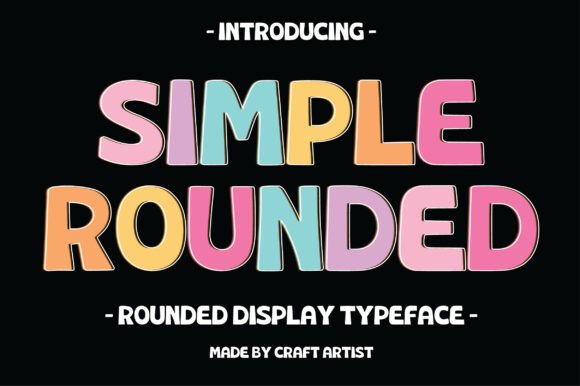
Simple Rounded: A Friendly Display Typeface for Thoughtful Design
Last week, I sat down to refresh the cover of a small digital cookbook—a collection of seasonal, no-fuss recipes I’ve been sharing with readers for years. The old cover used a tight, geometric sans serif that felt efficient but distant. I wanted something warmer. Something that whispered “welcome” before the first ingredient list even appeared. That’s when I reached for Simple Rounded.
It’s not flashy or experimental—just quietly confident. A display typeface built from soft curves and generous proportions, where every letterform feels like it’s breathing. There’s no sharp contrast between thick and thin strokes, no abrupt angles—just smooth transitions, open counters, and a gentle rhythm that invites the eye without demanding attention. It’s bold enough to hold space on a screen or printed page, yet never overwhelming. Playful, yes—but never childish. Modern, yes—but never cold.
I used Simple Rounded for the title on that cookbook cover, set large against a muted linen background. Instantly, the tone shifted: grounded, approachable, unhurried. Readers told me the cover felt “like coming home”—not because of the photography or layout alone, but because the typeface carried warmth into the first visual impression. That’s the quiet power of a well-chosen display font.
In editorial work, Simple Rounded shines where personality meets clarity. It’s ideal for blog headers, chapter openers, newsletter banners, and printable planner covers—anywhere you want to signal intention without shouting. I recently applied it to section headings in a coaching workbook, pairing each with a light, highly readable serif for body text. The contrast worked beautifully: Simple Rounded gave structure and friendliness; the serif offered quiet authority and ease for longer reading. No competing voices—just thoughtful hierarchy.
What makes it especially useful across formats is its consistency in translation. On mobile screens, it remains legible at headline sizes—even at 24px on a small device, the rounded terminals and generous x-height keep shapes distinct. In PDF exports for printables or course materials, it renders cleanly without hinting artifacts. And unlike some decorative display fonts, it doesn’t collapse in spacing or lose charm when exported to web-friendly formats like WOFF2.
That said, Simple Rounded isn’t meant for paragraphs. Its strength lies in short, intentional bursts: titles, pull quotes, callouts, branding elements. I once tested it for a digital magazine’s feature opener—two lines of headline text over a full-bleed photo—and it anchored the composition without competing with the image. But when I tried setting a sidebar caption in it, the friendliness began to blur into informality. That’s when I switched to a clean, neutral sans serif for supporting text. Good display fonts don’t try to do everything—they know their role.
Font pairing matters deeply in editorial design, and Simple Rounded plays well with others. With serif body fonts—think Garamond, Lora, or even a warm contemporary like Literata—it creates a gentle, human contrast: organic curves meeting structured elegance. With sans serifs, it pairs best with restrained, open-faced options like Inter, Poppins (in regular or light weights), or even classic Helvetica Neue—not for mimicry, but for balance. Avoid pairing it with other rounded fonts or scripts; the voice becomes muddled. Let Simple Rounded be the smile in the room—not the whole conversation.
I also appreciate how thoughtfully it’s built. The family includes multiple weights (Light through Bold), true italics—not slanted romans—and carefully drawn alternates for characters like ‘a’, ‘g’, and ‘y’ that add subtle nuance without sacrificing cohesion. Ligatures are present but tasteful, activated only where they enhance flow—not distract. Multilingual support covers Latin-based languages thoroughly, which mattered when I adapted one of my printable guides for bilingual readers. And the licensing is clear: commercial use is included, whether you’re embedding it in an ebook, using it in client newsletters, or selling branded printables on your own site.
In practice, I’ve seen Simple Rounded lift real projects: a wedding planning guide where couples told me the typography felt “calm but celebratory”; a weekly newsletter header that now stops scrollers mid-feed—not because it’s loud, but because it feels *intentionally kind*; a set of workshop worksheets where participants remarked how “easy it was to focus” on the prompts, thanks to the uncluttered letterforms.
Typography, at its best, isn’t about decoration—it’s about stewardship. Stewardship of attention. Of mood. Of time. Choosing Simple Rounded means choosing a tone that respects the reader’s presence: no urgency, no pretense, just clarity wrapped in quiet confidence. It doesn’t ask you to perform. It asks you to pause, recognize, and continue—gently.
If you’re designing a lifestyle blog header, a recipe ebook cover, a coaching workbook, or even a set of printable habit trackers, consider how much tone lives in the first letter your reader sees. Simple Rounded won’t solve layout problems or replace strong writing—but it will make the space around both feel more hospitable. And sometimes, that’s exactly what thoughtful publishing is about.